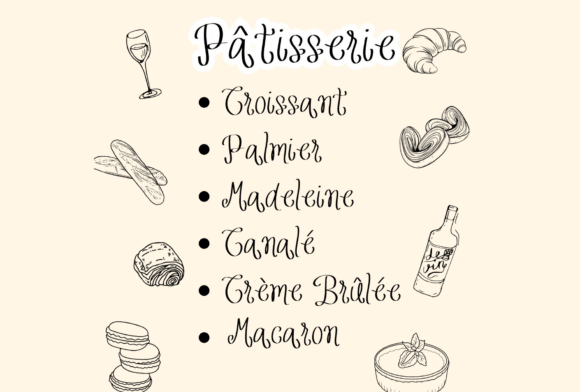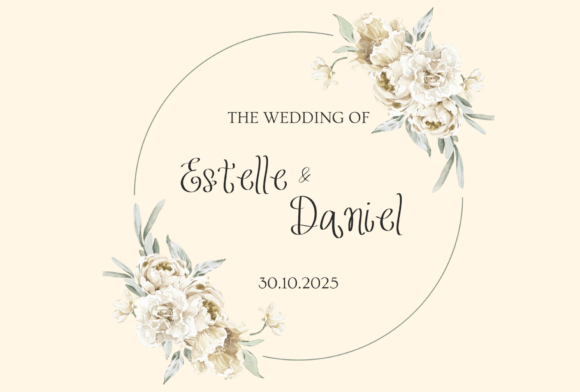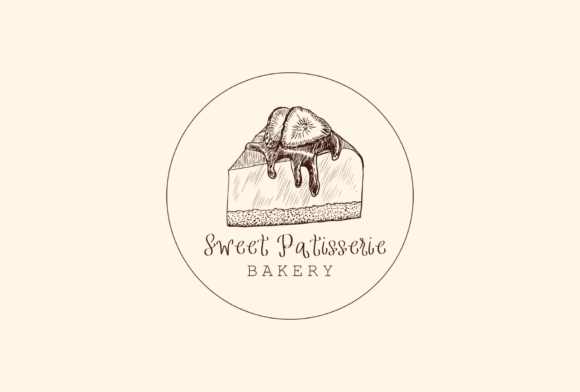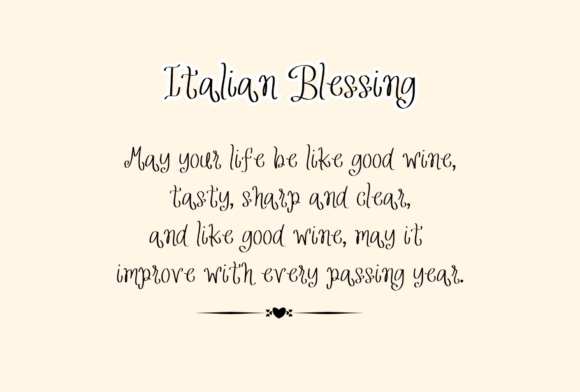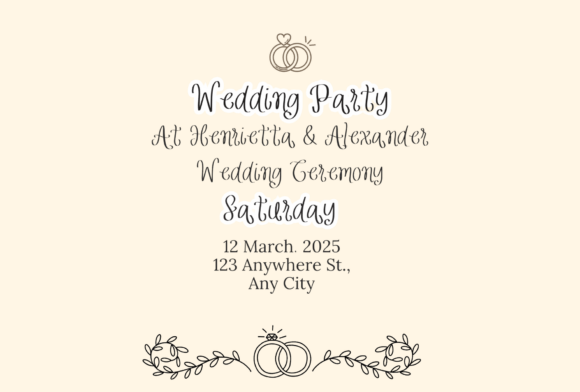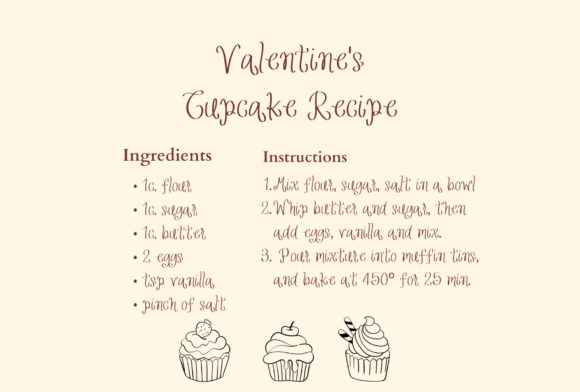
The Perfect Font for Your Dream Wedding
Do you remember the moment when you first started planning your wedding? The excitement, the anticipation, the endless possibilities? For many of us, it’s the little details that make our special day truly unforgettable. One of those details is the stationery – the invitations, save-the-dates, and all the beautiful cards that set the tone for the celebration to come.
That’s where the Bellissima Font comes in – a stunning handwritten wedding font that exudes elegance and romance. Its delicate strokes and graceful curves add a touch of sophistication to any event, making it a valuable addition to any designer’s toolkit. Whether you’re a seasoned pro or a DIY enthusiast, Bellissima Font is the perfect choice for creating beautiful wedding stationery that reflects your personal style.
Bellissima Font Key Features
- Unique Characteristics: Bellissima Font features elegant, cursive script with intricate details, making it perfect for formal invitations, wedding stationery, and other special occasions.
Bellissima Font Review
Overall, I’m impressed with the Bellissima Font. It’s a beautiful, elegant script font that’s perfect for creative projects. ✨ The font’s flowing connections and swashes give it a romantic and sophisticated feel that’s hard to find in other fonts.
- Beautiful connections and swashes that add a touch of elegance to any design
- Perfect for creative projects, such as invitations, posters, and wedding stationery
However, I do have some concerns about the font’s limitations. ⚠️ While the font is beautiful, it can be quite challenging to read, especially in smaller font sizes. This might make it difficult to use for body text or other areas where readability is crucial.
LIMITATIONS:
- Can be difficult to read in smaller font sizes
- Not ideal for body text or areas where readability is crucial
- May require additional styling to make it more readable
Overall, I would recommend the Bellissima Font for creative projects where a beautiful, elegant script font is required. Just be mindful of its limitations and use it accordingly.
Bellissima Font: A Practical Application Guide
Tips for Getting the Most Out of Bellissima Font
Here are some tips for getting the most out of Bellissima Font:
- Use Bellissima Font for elegant and sophisticated designs.
- Pair Bellissima Font with bold and bright colors to create a striking contrast.
Bellissima Font is commonly used for:
- Luxury brand logos and packaging.
- Use the Bellissima Font as the main title font for the wedding invitation.
- Pair it with a classic serif font, such as Times New Roman or Garamond, for the body text.
- Experiment with different font sizes and colors to create a striking contrast.
- Use a soft, watercolor background to add a touch of whimsy and romance.
- Add a custom illustration of a wedding bouquet or a couple’s silhouette to make the invitation more personal.
Project Ideas using Bellissima Font
Create a beautiful and sophisticated wedding invitation using the Bellissima Font. This elegant script font will add a touch of luxury and romance to your invitation design.
Project 2: Luxury Travel Brochure
Create a stunning travel brochure using the Bellissima Font to transport your readers to a world of luxury and elegance.